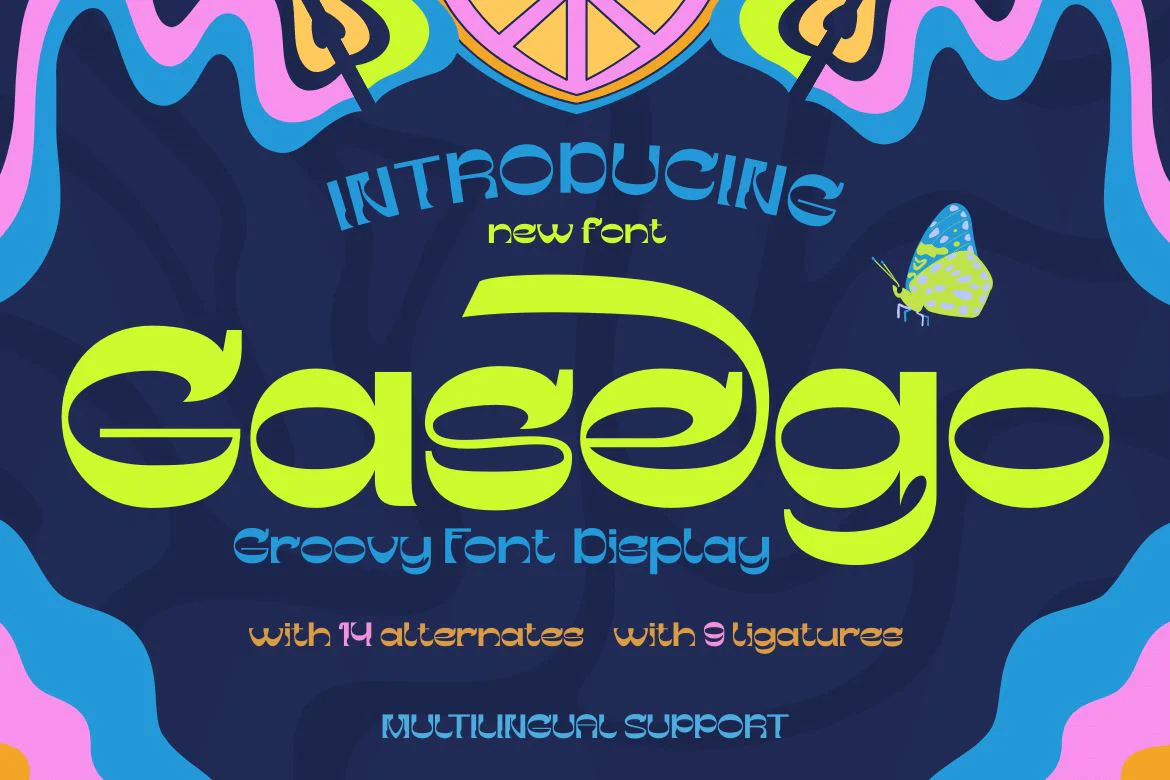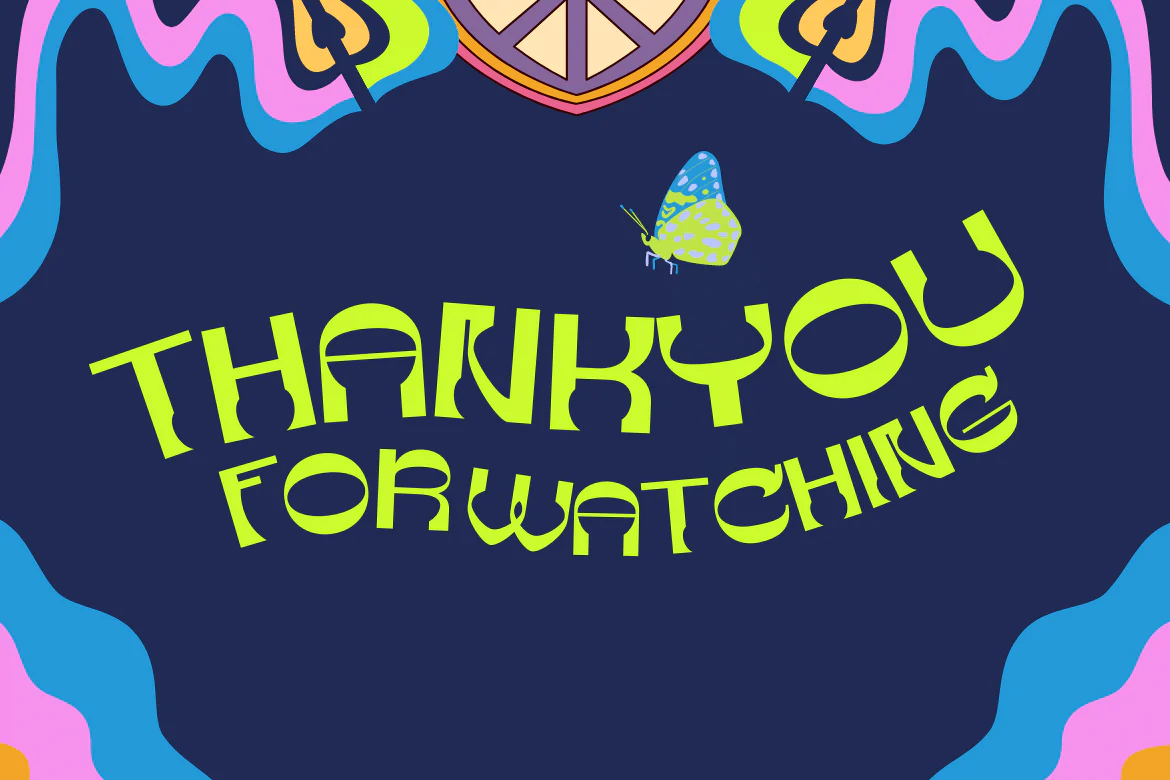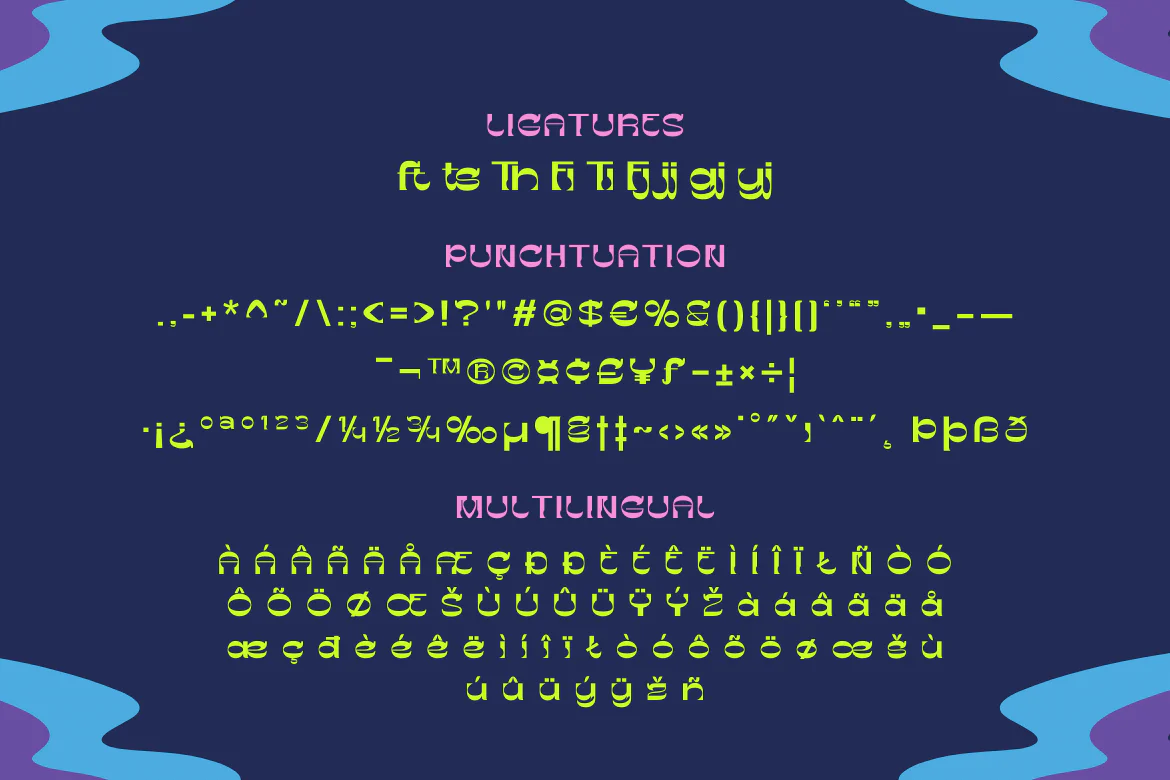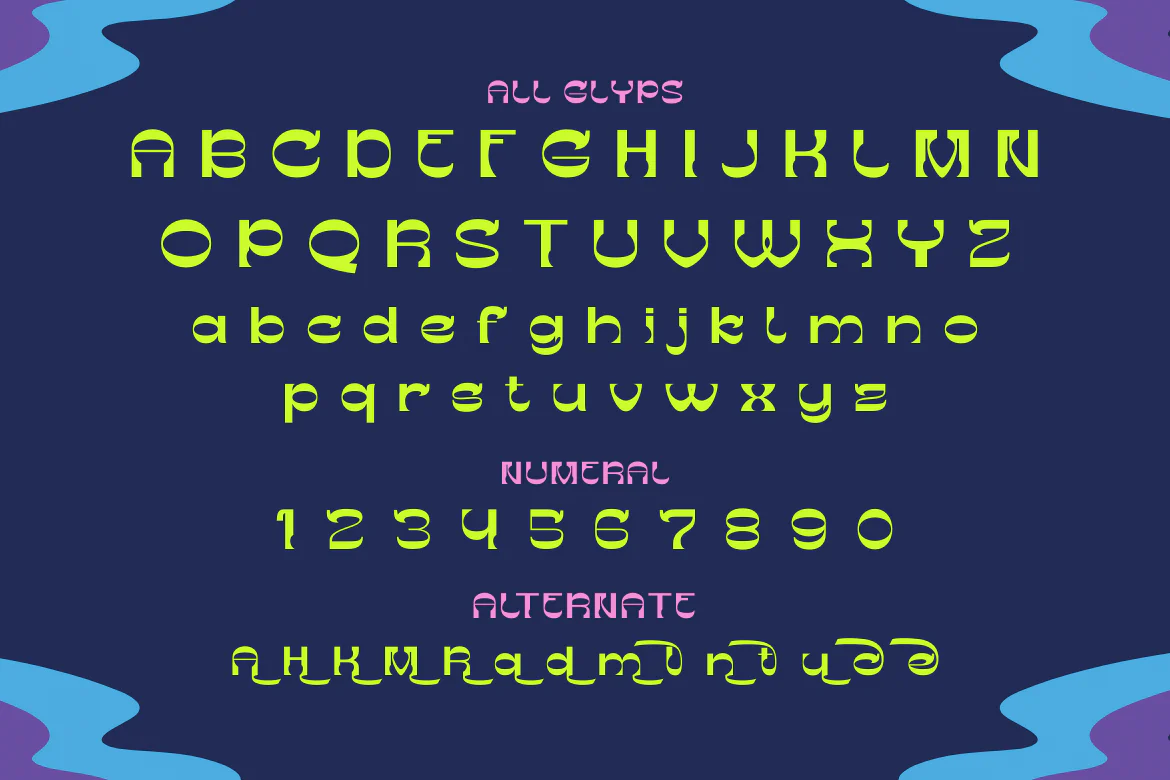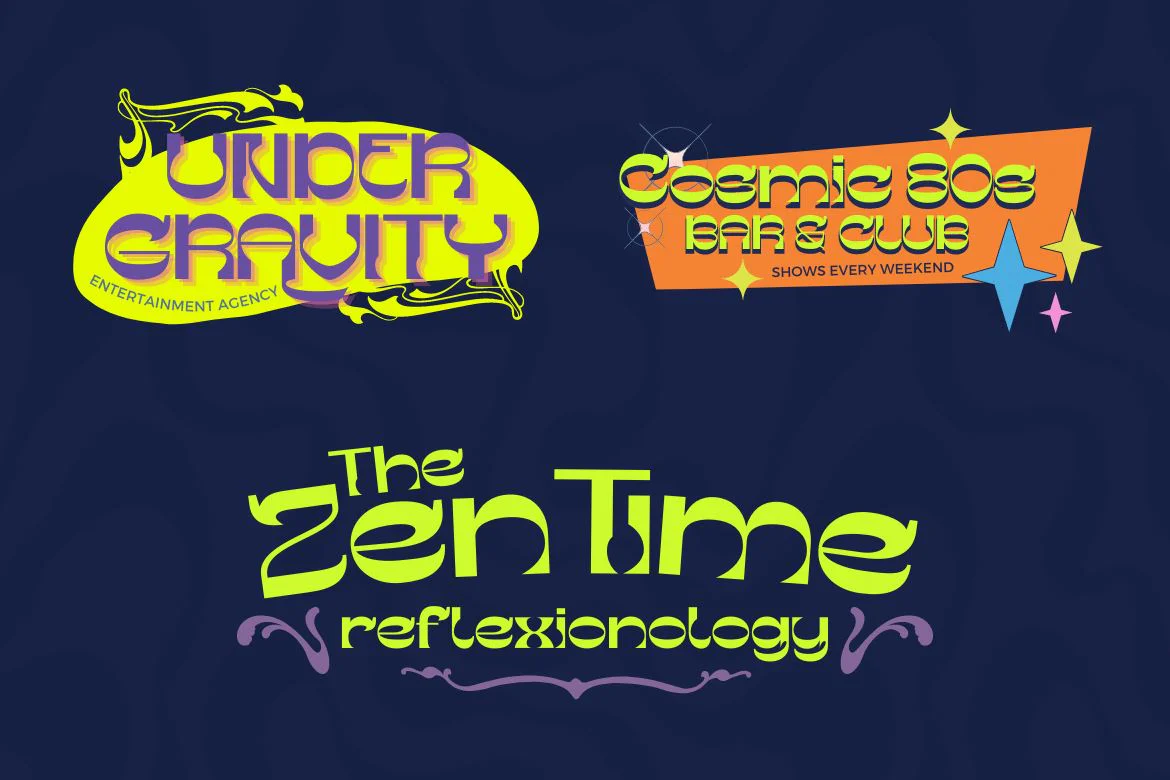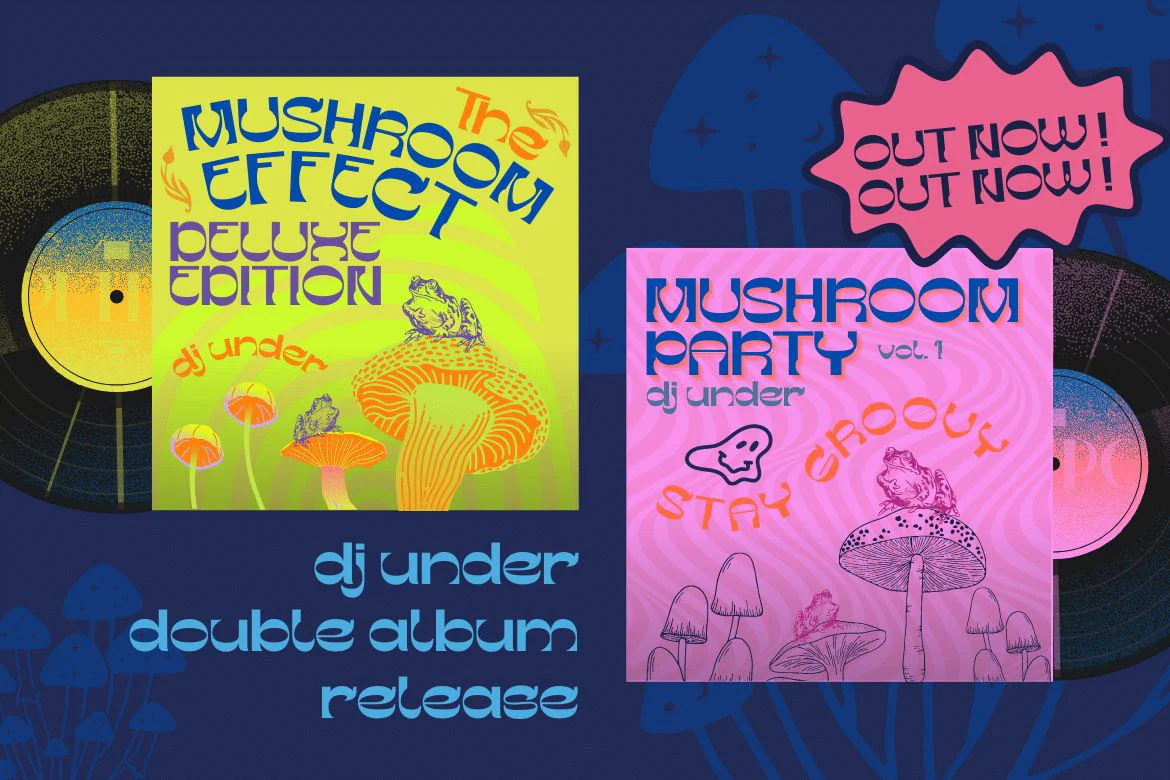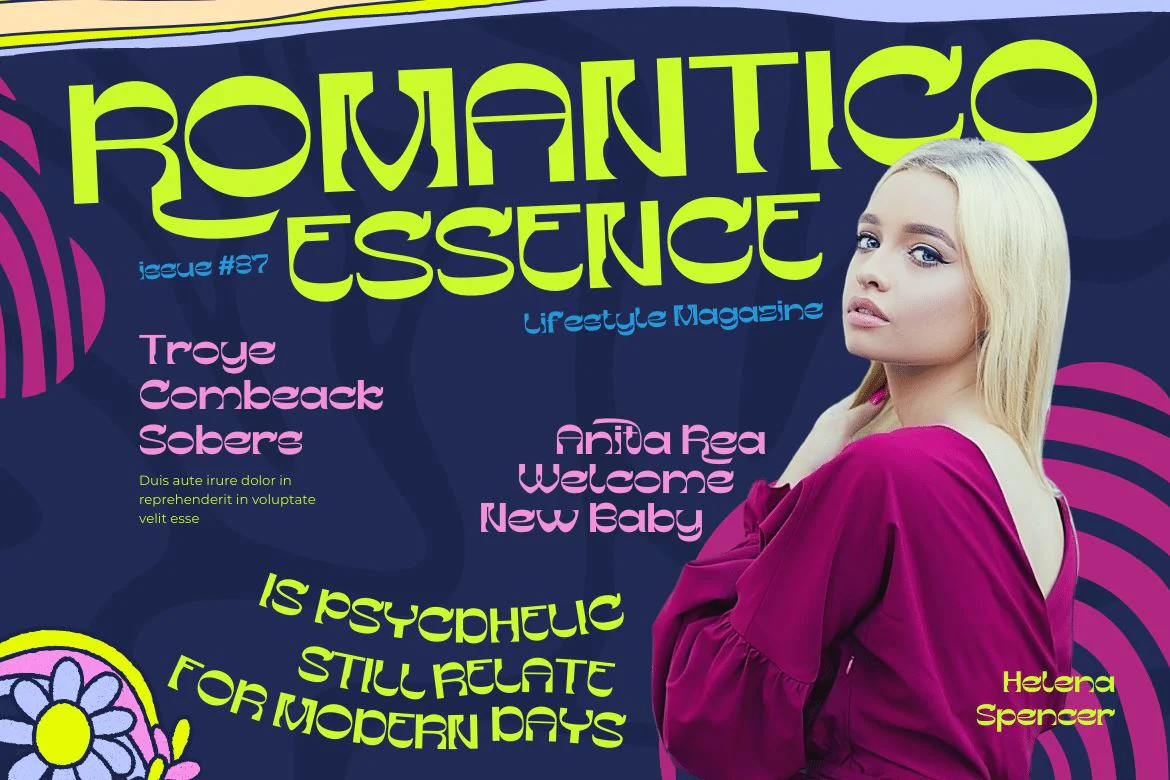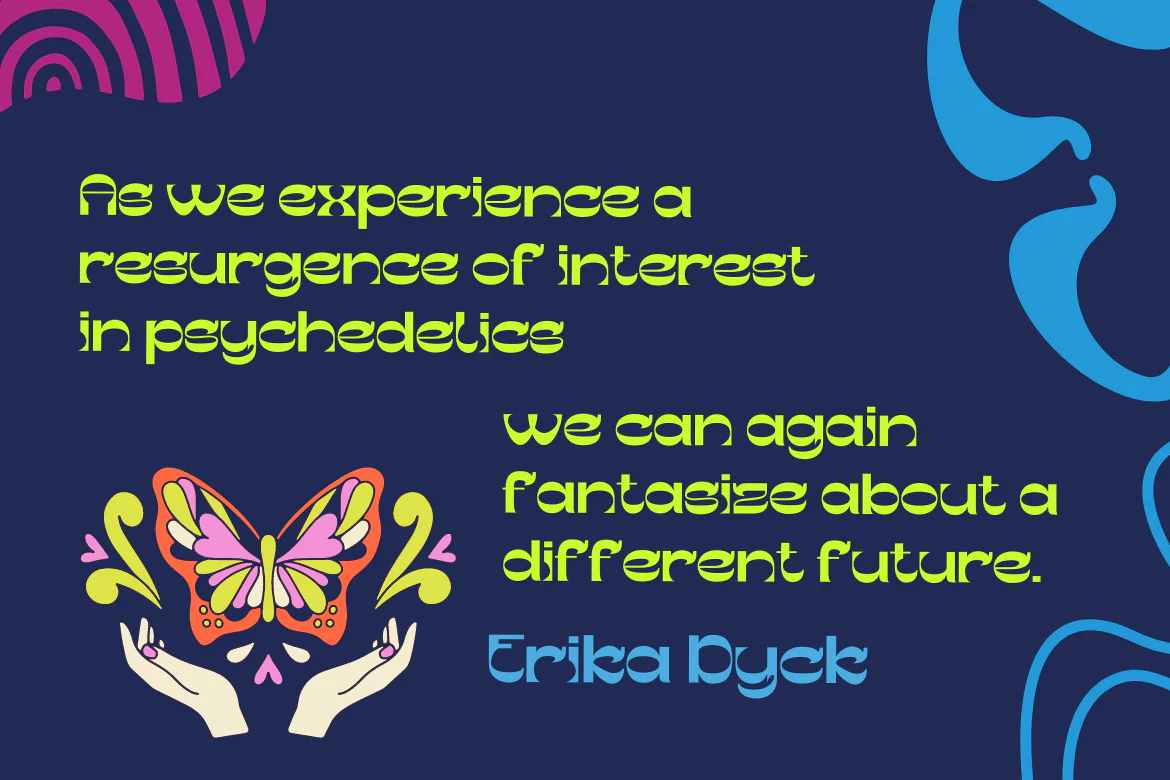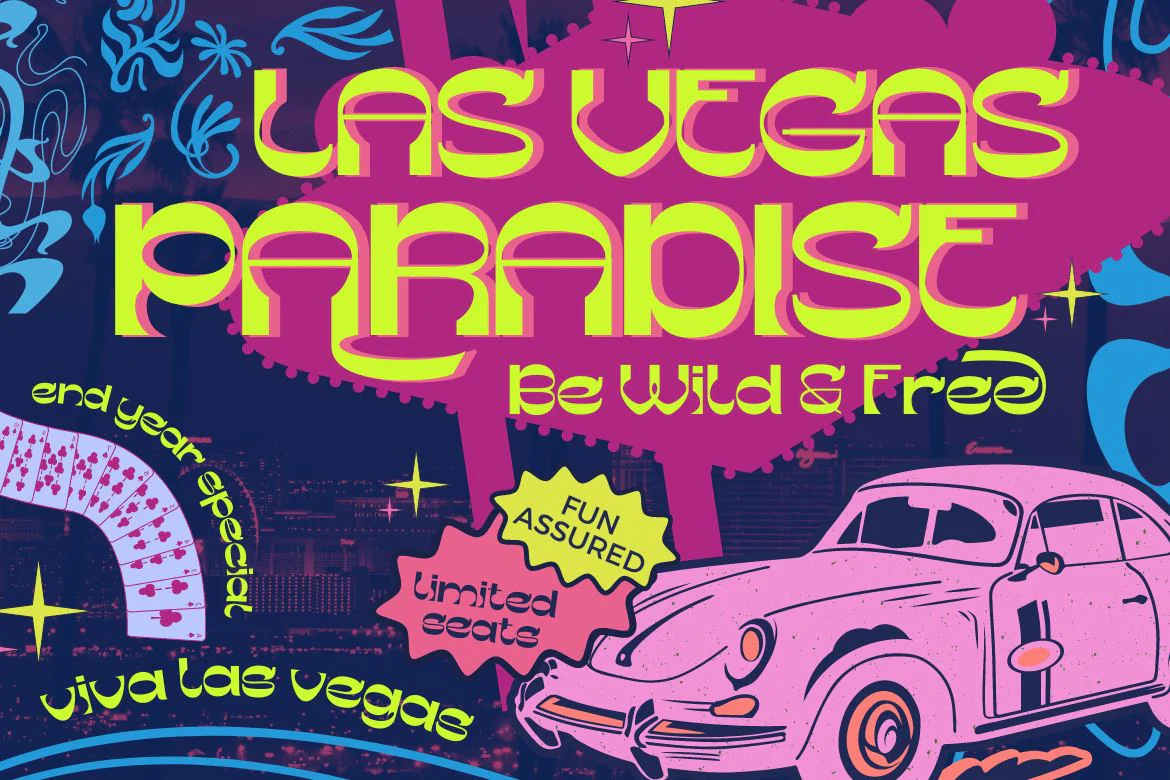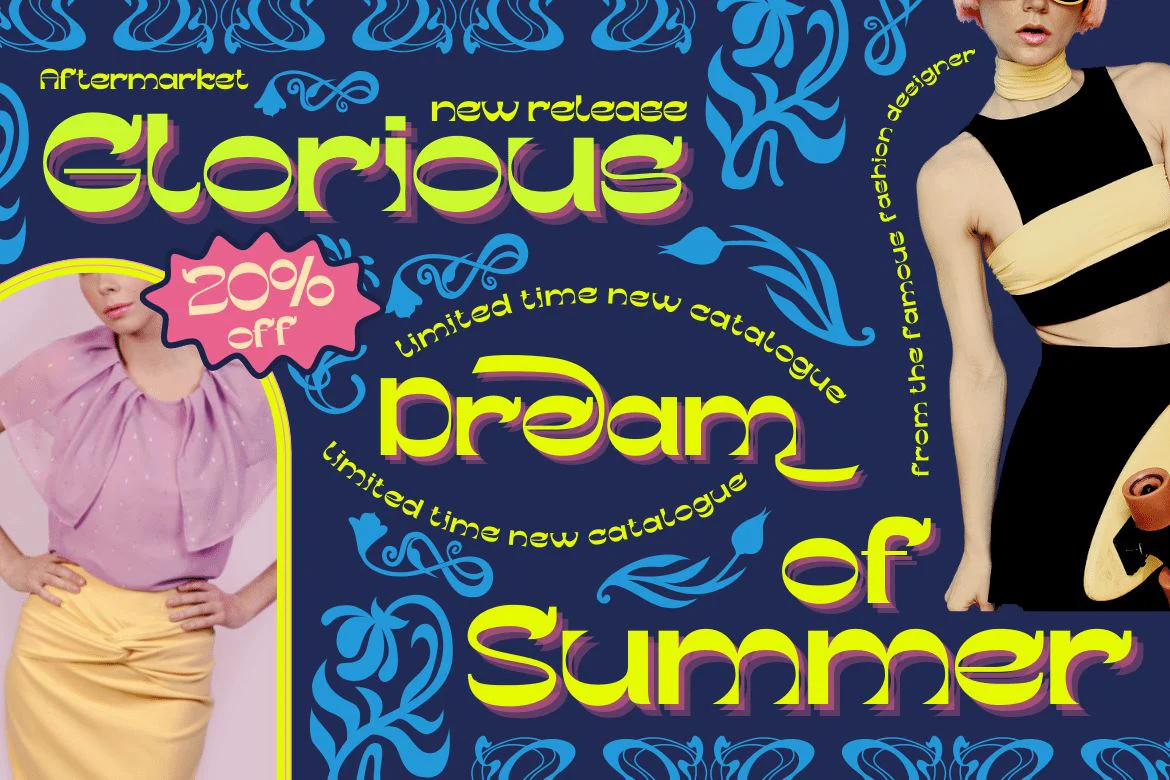
Gesego | Groovy Retro Font
Introducing our newest font called Gasego, this font will bring a unique touch to your design, Gasego Groovy font is one of the right choices. With precise curves and soft lines, this fun font is sure to add something special to your designs. It’s never too late to start incorporating this cool font into your work, so don’t wait and use it now!
- Standard glyphs Iso Latin 1
Introducing our newest font called Gasego, this font will bring a unique touch to your design, Gasego Groovy font is one of the right choices. With precise curves and soft lines, this fun font is sure to add something special to your designs. It’s never too late to start incorporating this cool font into your work, so don’t wait and use it now!
- Standard glyphs Iso Latin 1